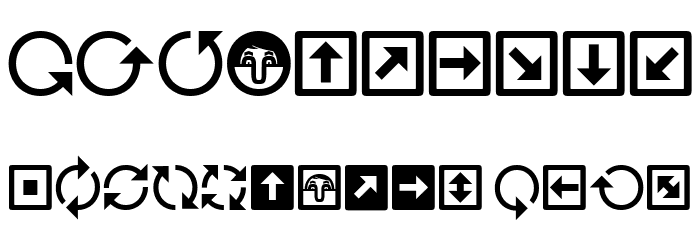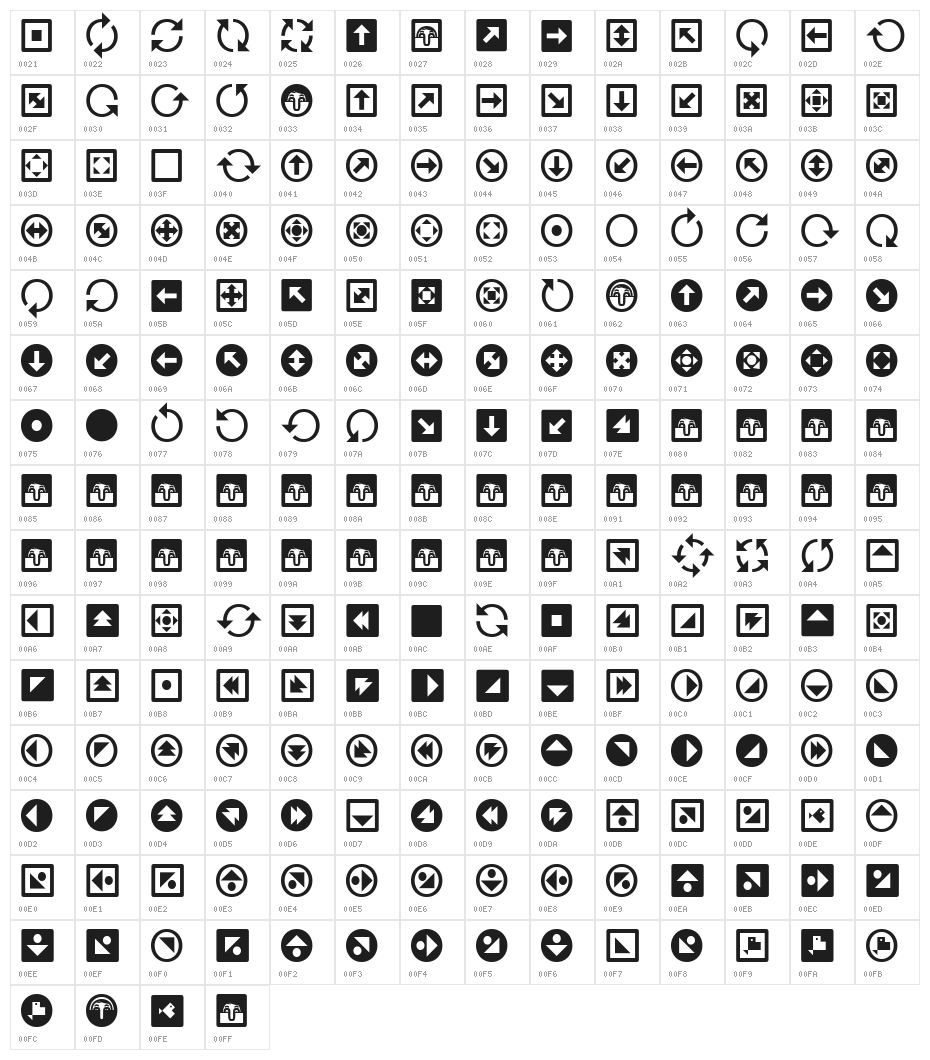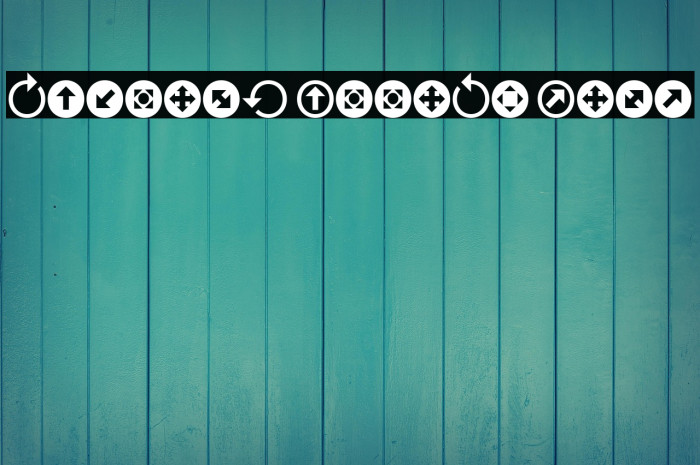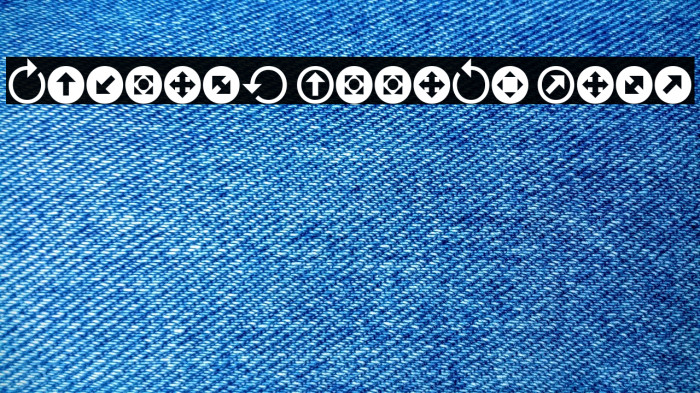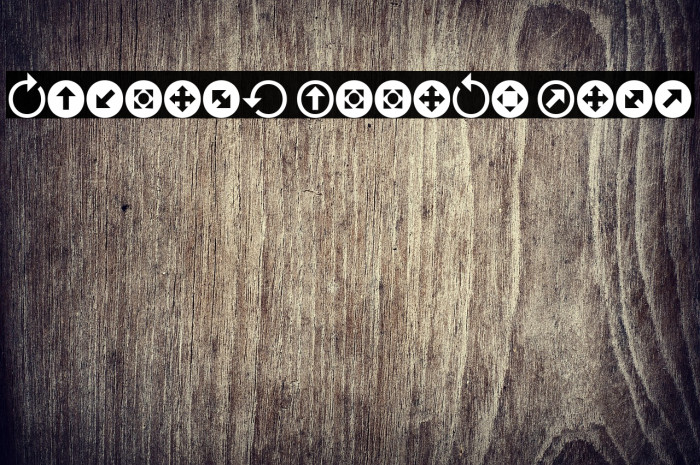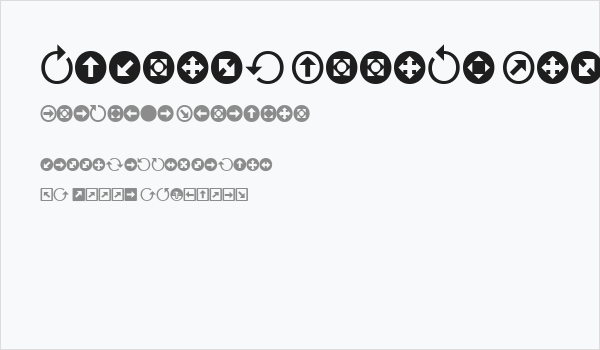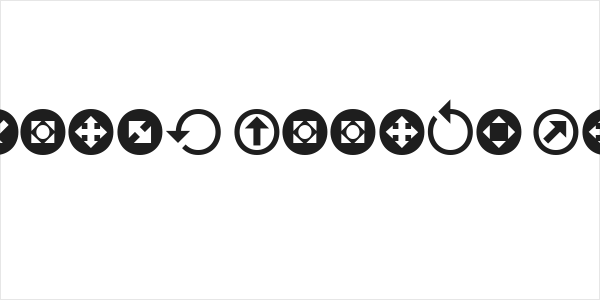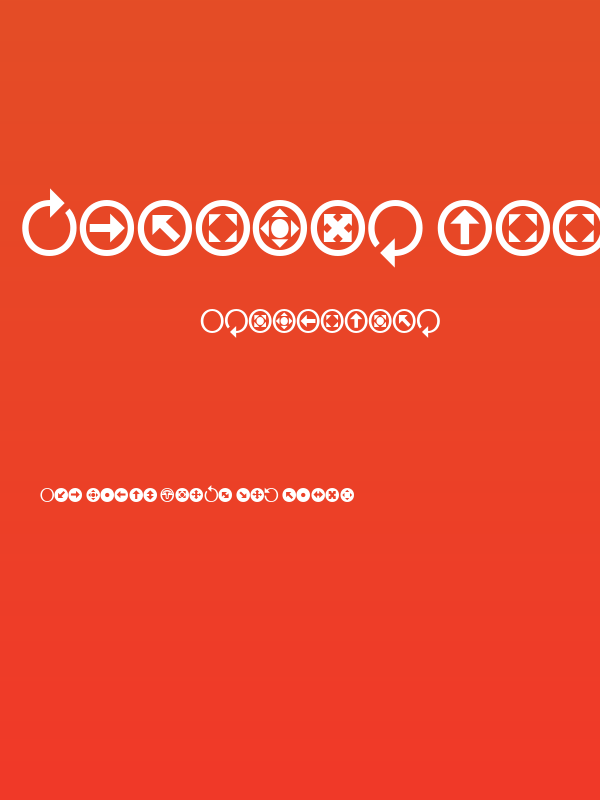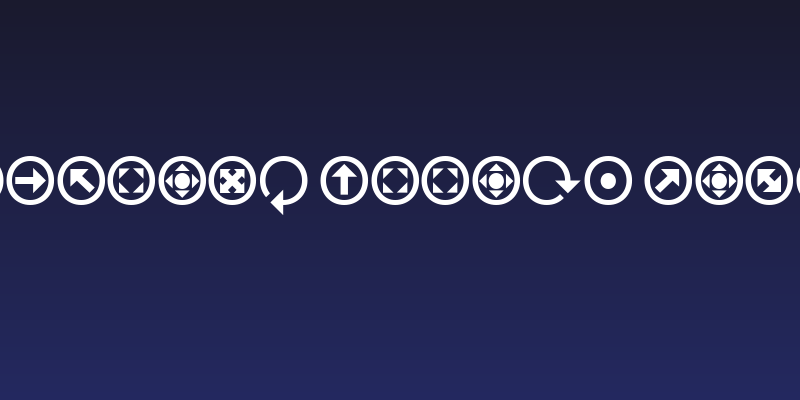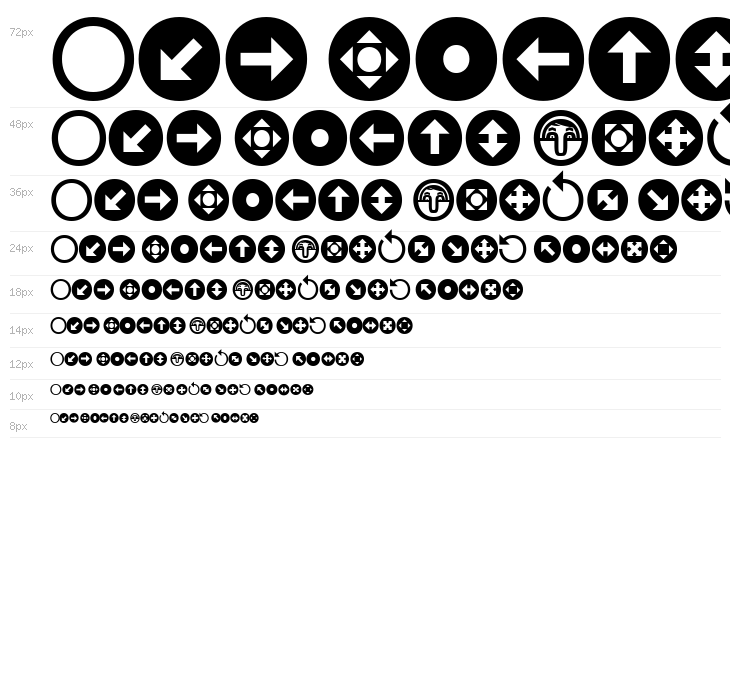
Uchrony Arrows Bold Font
Uchrony Arrows Bold Description
This is a decorative font featuring a variety of arrow symbols enclosed within circles and squares. The arrows point in multiple directions, including up, down, left, right, and diagonally. The bold design of the arrows makes them stand out prominently against the background. Some symbols include additional elements, such as rotational arrows and crosshairs, adding to the font's versatility. The consistent use of geometric shapes provides a modern and structured appearance, making it suitable for directional signage or digital interfaces.
| Use Case | Signage, Navigation, Digital Interfaces |
| Proposed Projects | Ideal for use in signage, navigation systems, digital interfaces, and educational materials requiring directional indicators. |